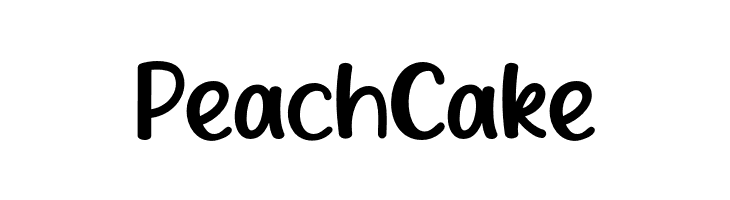
A playful, hand-drawn font with rounded, irregular letterforms.
A playful, handwritten font with bold, irregular strokes.
A playful handwritten font with smooth, flowing curves and a casual style.
A playful, casual handwritten font with smooth curves and irregular strokes.
A playful, handwritten font with fluid strokes and a casual, energetic style.
A playful, cursive script font with a hand-drawn, whimsical style.
A bold, playful handwritten font with rounded strokes and a dynamic slant.
A playful, bold font with rounded characters and a friendly appearance.
A bold, playful font with rounded, whimsical characters.
A playful, rounded font with a friendly and approachable style.